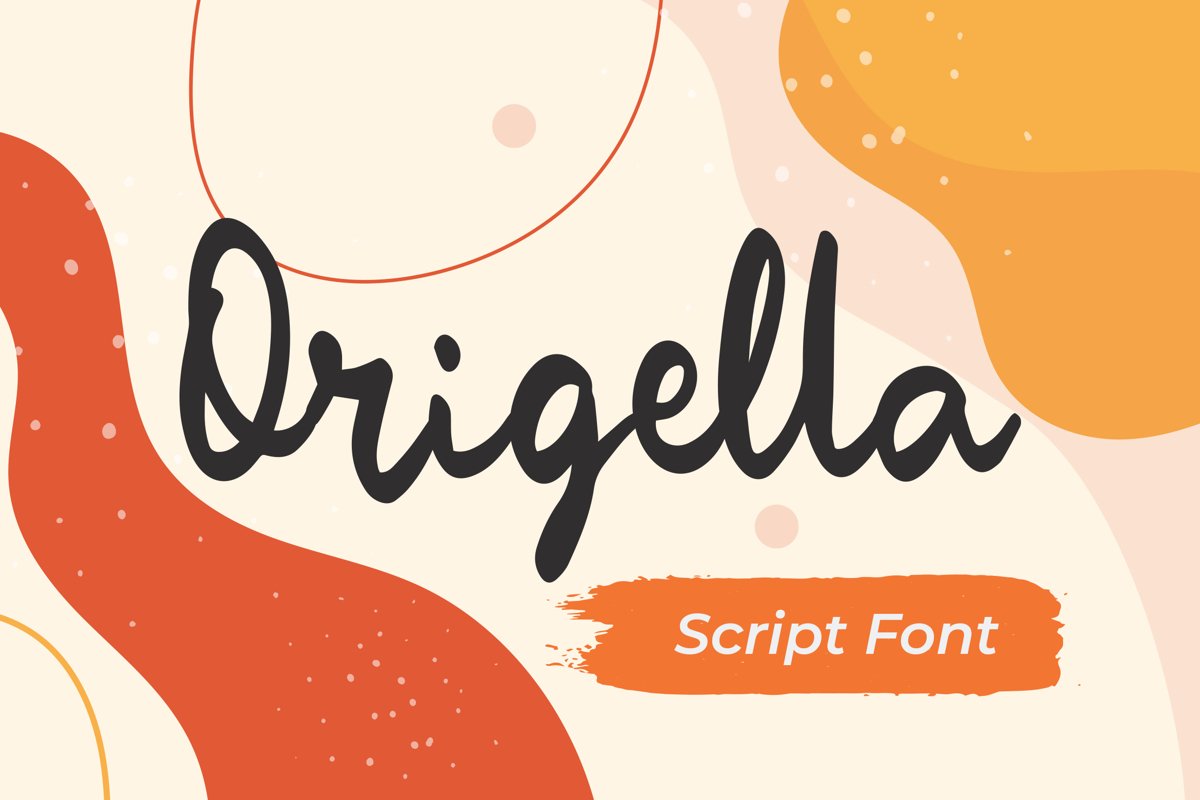
Origella - Script Handwritten Fonts that contain lowercase, uppercase, symbol, and also support multi language. There’s a lot ligatures in this font. This Font also comes with ligatures, alternates and many more. this font suitable for fashion, branding, catalog and other design what you want.
Origella